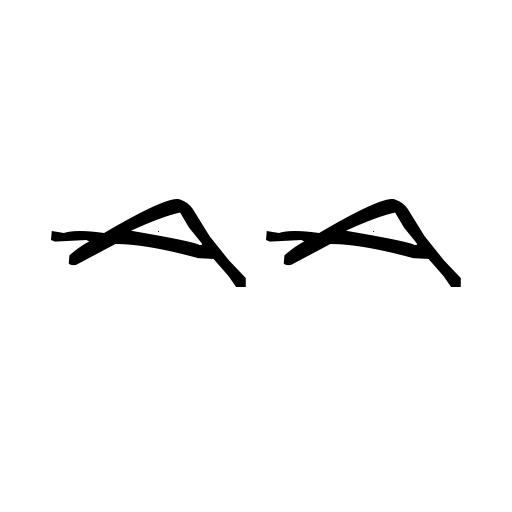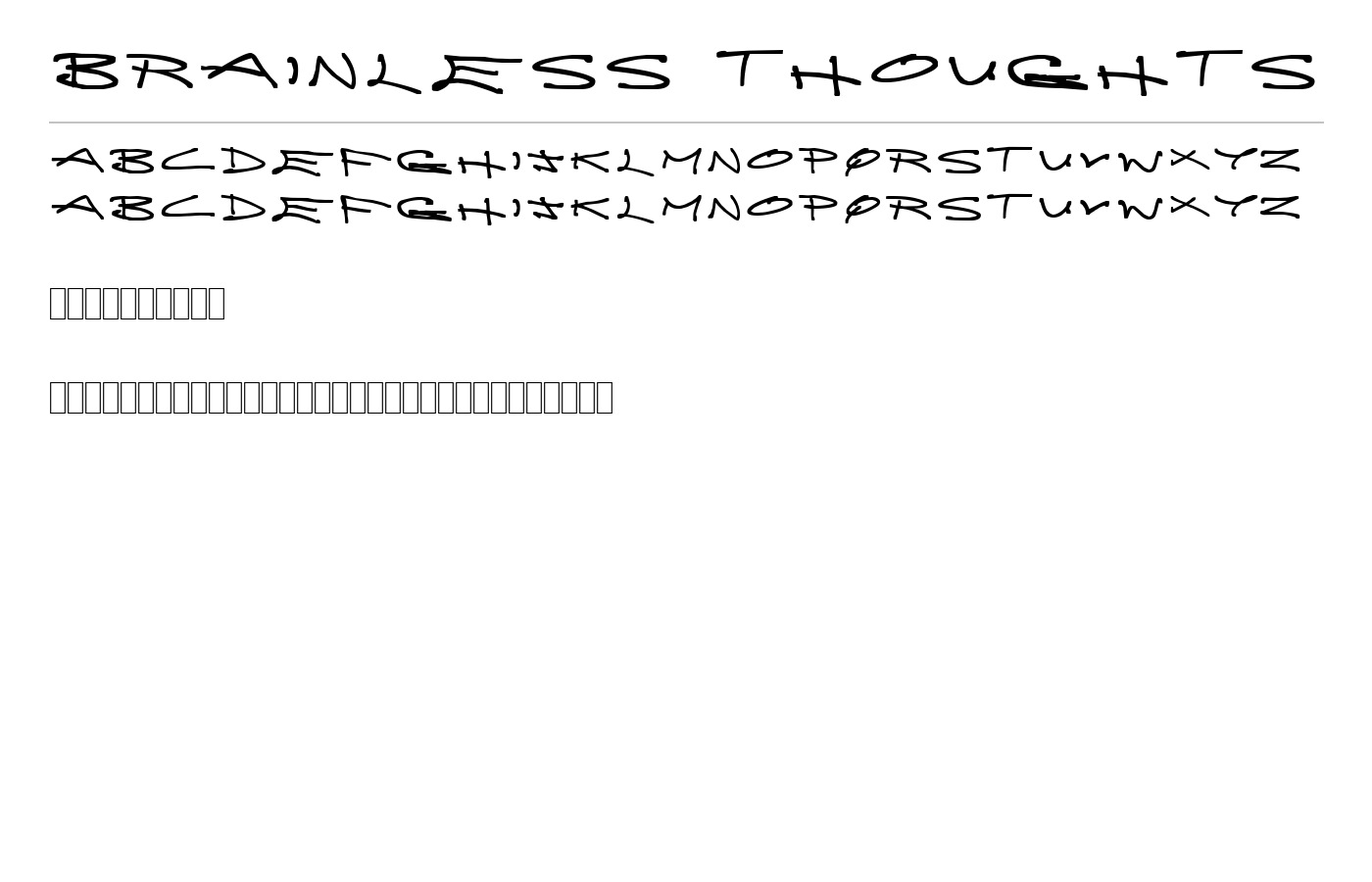
Brainless Thoughts is a playful, handwritten-style font with a casual, energetic feel. Its irregular, slightly quirky letterforms and consistent stroke weight make it ideal for creative projects, informal branding, or fun headlines where a personal, approachable touch is desired. This font works well in contexts that benefit from a relaxed, friendly vibe rather than formal or polished looks.
Brainless Thoughts Font
About Brainless Thoughts Font